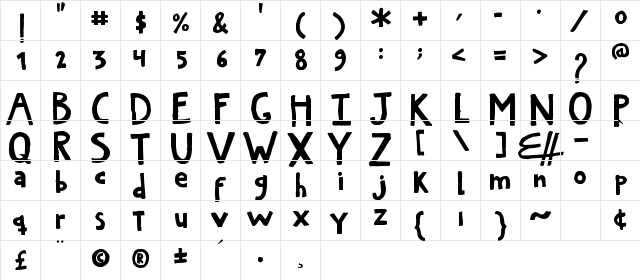
ArtYard Thick Regular
Design Context for ArtYard Thick Typeface
ArtYard Thick is a composed and adaptable typeface that performs quietly and consistently across a wide range of design contexts.